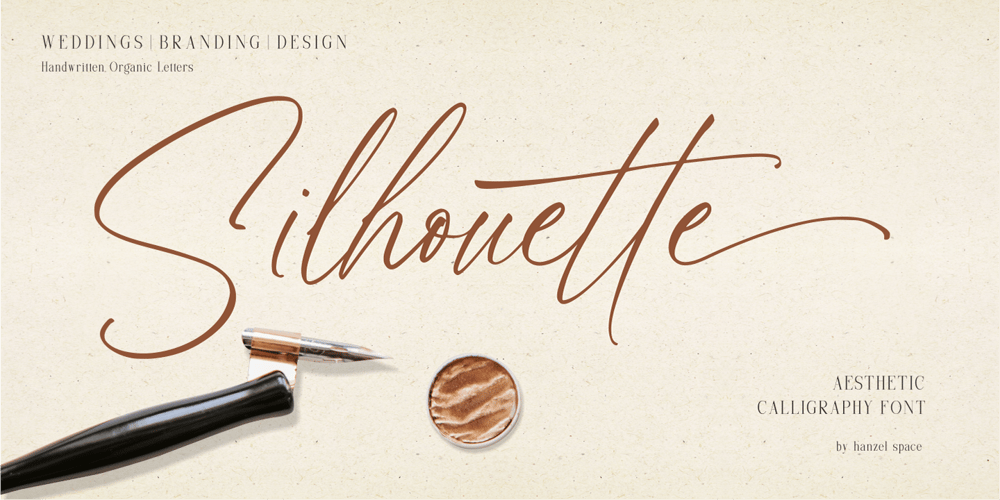
Silhouette Signature Font Family was designed by Hanief Farandi and published by Hanzel Space. Silhouette Signature contains 1 styles and family package options. Here I present a full Aesthetic Silhouette font with original handwriting. The design looks stunning and attractive with a natural touch. I made this font for those of you who are in need for branding purposes, taglines, websites, invitations, logos, cards, magazines and so on. Full Set of standard alphabet and punctuation Extra set of ending swashed lowercase Handwritten ligatures Happy creating!Cheers!